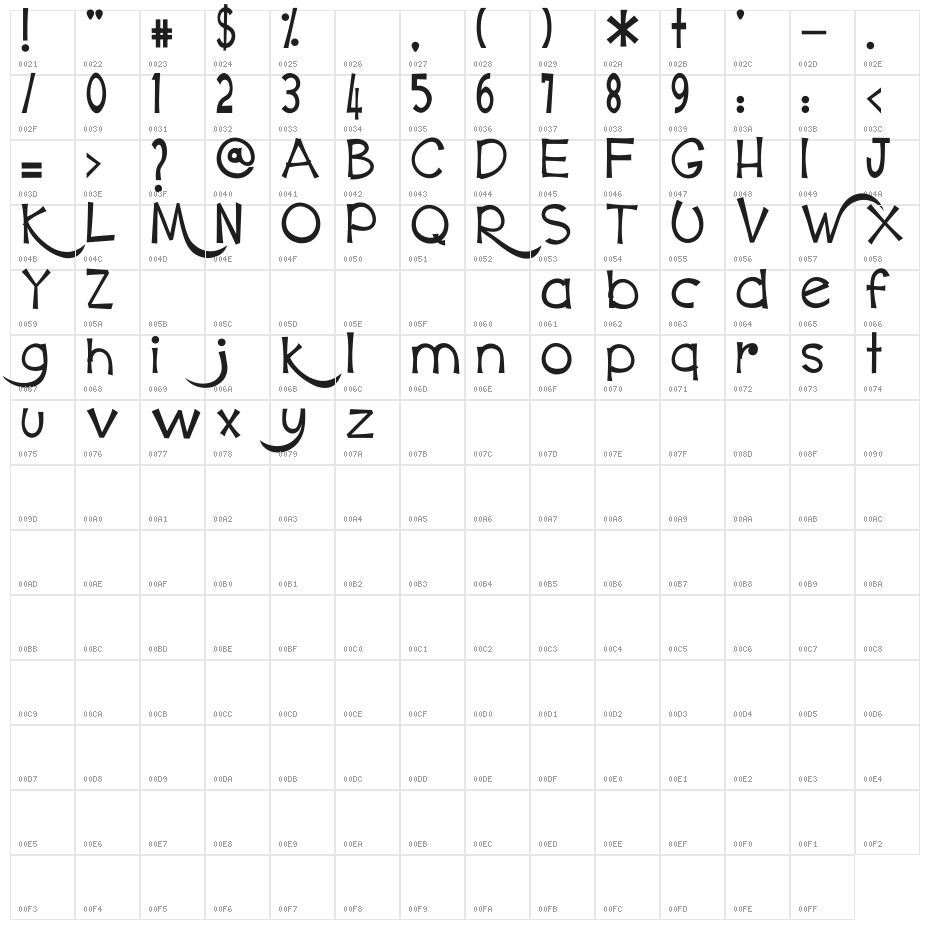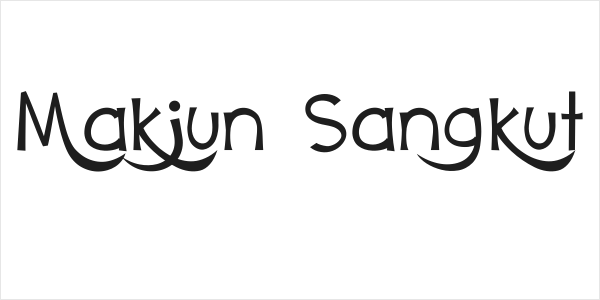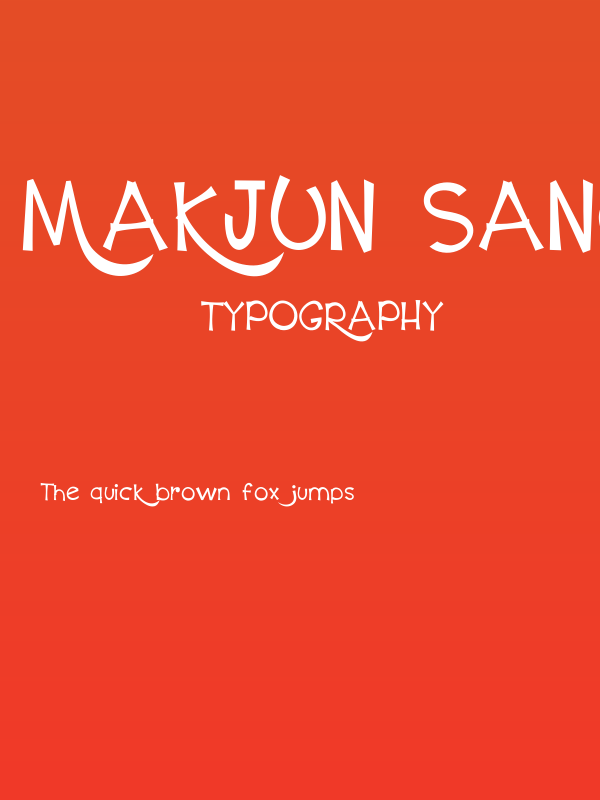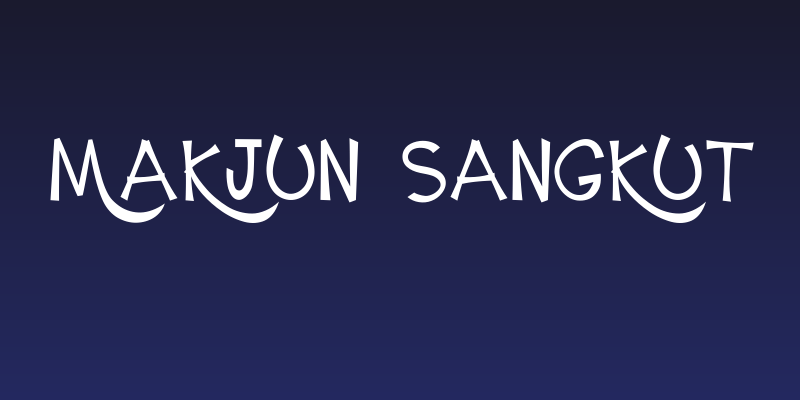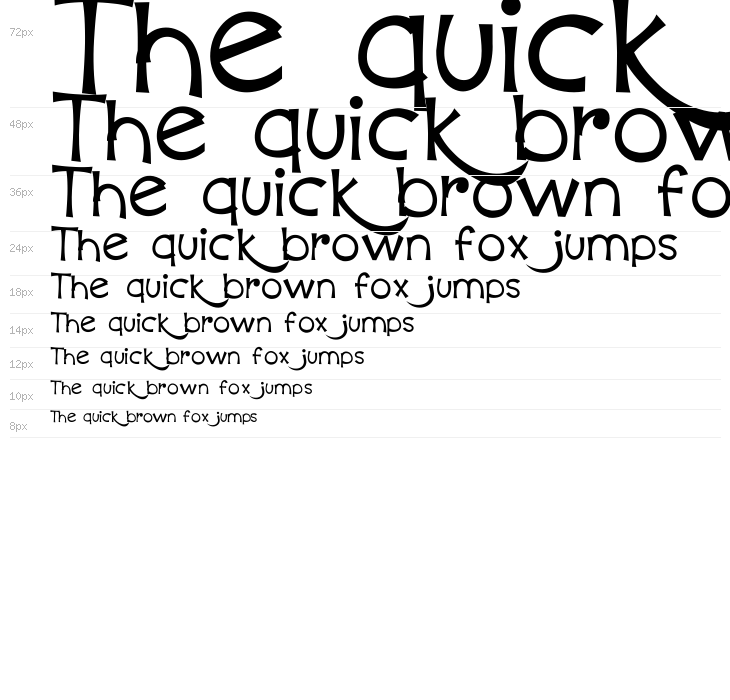
Makjun Sangkut Font
Makjun Sangkut Description
This font features a unique and playful design with a decorative flair. The uppercase letters exhibit a whimsical style with exaggerated curves and strokes, particularly noticeable in letters like 'Q', 'R', and 'S'. The lowercase letters maintain a consistent playful aesthetic, with some characters like 'g' and 'y' having distinctive loops and tails. The numerals are bold and maintain the decorative theme, making them stand out. Special characters are creatively designed, adding to the overall charm. This font is ideal for projects that require a fun and engaging visual element.
| Proposed Projects | Ideal for children's books, playful branding, event invitations, and creative posters. |